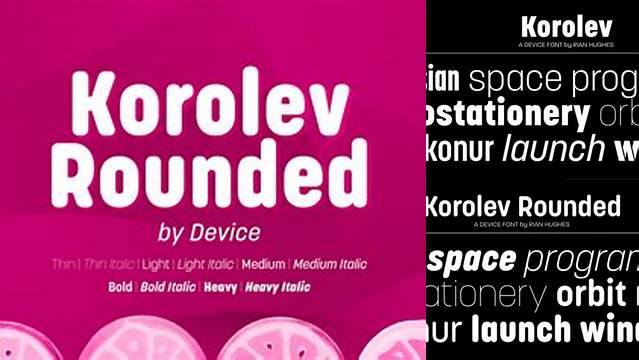
Hey design lovers and fellow creatives! Today, we're diving deep into the awesome world of the Korolev Rounded font. If you've been on the hunt for a font that's both modern and approachable, with a touch of playful charm, then you're in the right place. We're going to explore everything about this fantastic typeface, from where to snag a free download to how you can use it to make your design projects absolutely pop. So, grab your favorite beverage, get comfy, and let's get this font party started!
Understanding the Appeal of Korolev Rounded Font
The Korolev Rounded font isn't just another pretty typeface; it's a carefully crafted design that offers a unique blend of characteristics. Its rounded terminals give it a soft, friendly, and contemporary feel, making it incredibly versatile. Unlike sharp, geometric fonts that can sometimes feel cold or overly formal, Korolev Rounded brings a sense of warmth and accessibility to any text. This makes it perfect for a wide range of applications, from branding and logo design to website copy, social media graphics, and even children's books. The readability is excellent, even at smaller sizes, which is a huge win for usability. When you're choosing a font, you want something that not only looks good but also communicates effectively. Korolev Rounded nails this balance. Its clean lines and generous x-height ensure that every letter is clear and distinct, reducing eye strain and making your message easy to digest. Plus, the subtle curves add a touch of personality that can elevate a design from ordinary to extraordinary. Think about the kind of impression you want to make – do you want to come across as serious and imposing, or approachable and engaging? Korolev Rounded leans heavily towards the latter, making it an excellent choice for brands that want to build a connection with their audience. It’s the kind of font that makes people feel welcome and comfortable, which is a powerful asset in any design.
Why Choose Korolev Rounded for Your Next Project?
So, why should you consider Korolev Rounded font for your next creative endeavor, guys? Well, let me break it down for you. Firstly, its rounded edges make it incredibly friendly and approachable. This is super important for brand identity – you want your audience to feel a connection, right? A font like Korolev Rounded can instantly communicate warmth and a welcoming vibe. Secondly, it’s remarkably versatile. Whether you’re designing a sleek corporate logo, a fun social media post, a minimalist website, or even a children's book, this font can adapt. It doesn’t feel out of place in a formal setting, nor does it look too casual for something that needs a bit more gravitas. It strikes that sweet spot. Thirdly, and this is a big one, it’s often available as a free download. This is a massive advantage for designers, especially freelancers, startups, or anyone working on a tight budget. Getting access to a high-quality, aesthetically pleasing font without breaking the bank is a game-changer. It allows you to experiment and explore different design avenues without the financial burden. Think about the cost of premium fonts; they can add up quickly! Having a reliable free option like Korolev Rounded in your toolkit saves money and expands your creative possibilities. It’s a smart choice for anyone who needs professional-looking typography without the hefty price tag. The clarity and legibility of the font also mean that your message will be conveyed clearly, which is paramount in any design communication. Ultimately, choosing Korolev Rounded is a decision that balances aesthetics, functionality, and cost-effectiveness, making it a truly smart move for a wide array of projects.
Exploring the Typographic Features of Korolev Rounded
Let's get a bit more technical, shall we? The Korolev Rounded font boasts some really cool typographic features that set it apart. The most obvious, of course, is its rounded terminals. These aren't just random curves; they're carefully designed to create a consistent, harmonious look across all characters. This attention to detail is what separates good fonts from great ones. You’ll notice how the roundness is applied consistently, giving the font a unified and polished feel. Beyond the curves, take a look at the letterforms themselves. They often have a generous x-height, which means the lowercase letters are tall and easily readable. This is crucial for body text, ensuring that paragraphs don't become a jumbled mess. The ascenders (the parts of letters like 'h', 'l', 't' that go up) and descenders (the parts of letters like 'p', 'q', 'y' that go down) are typically well-proportioned, contributing to the overall balance and rhythm of the text. Many versions of Korolev Rounded also come with a good range of weights – think light, regular, medium, bold, and perhaps even extra bold. This variety is essential for creating hierarchy in your designs. You can use a bold weight for headlines, a regular weight for body text, and a light weight for subtle accents, all within the same font family. This consistency in style across different weights makes the design process much smoother and the final output look cohesive. Some releases might even include italics or specialized glyphs, further enhancing its usability. It’s this combination of aesthetic charm and functional design that makes Korolev Rounded a designer’s favorite.